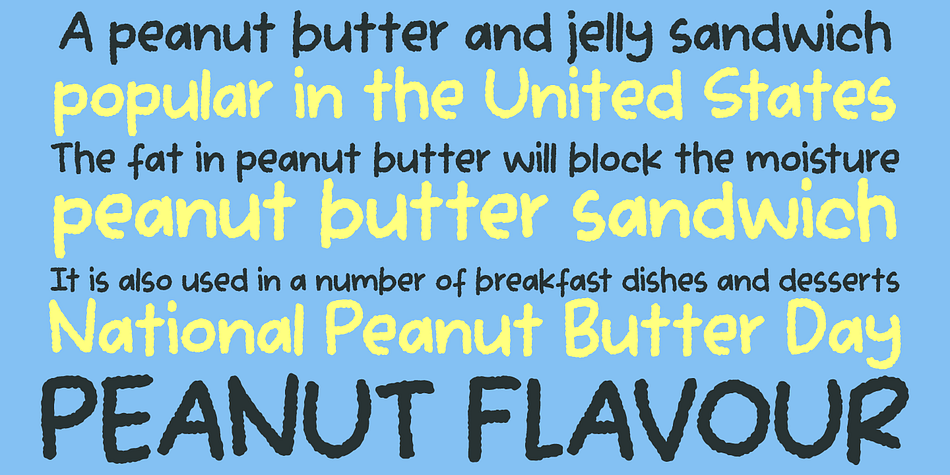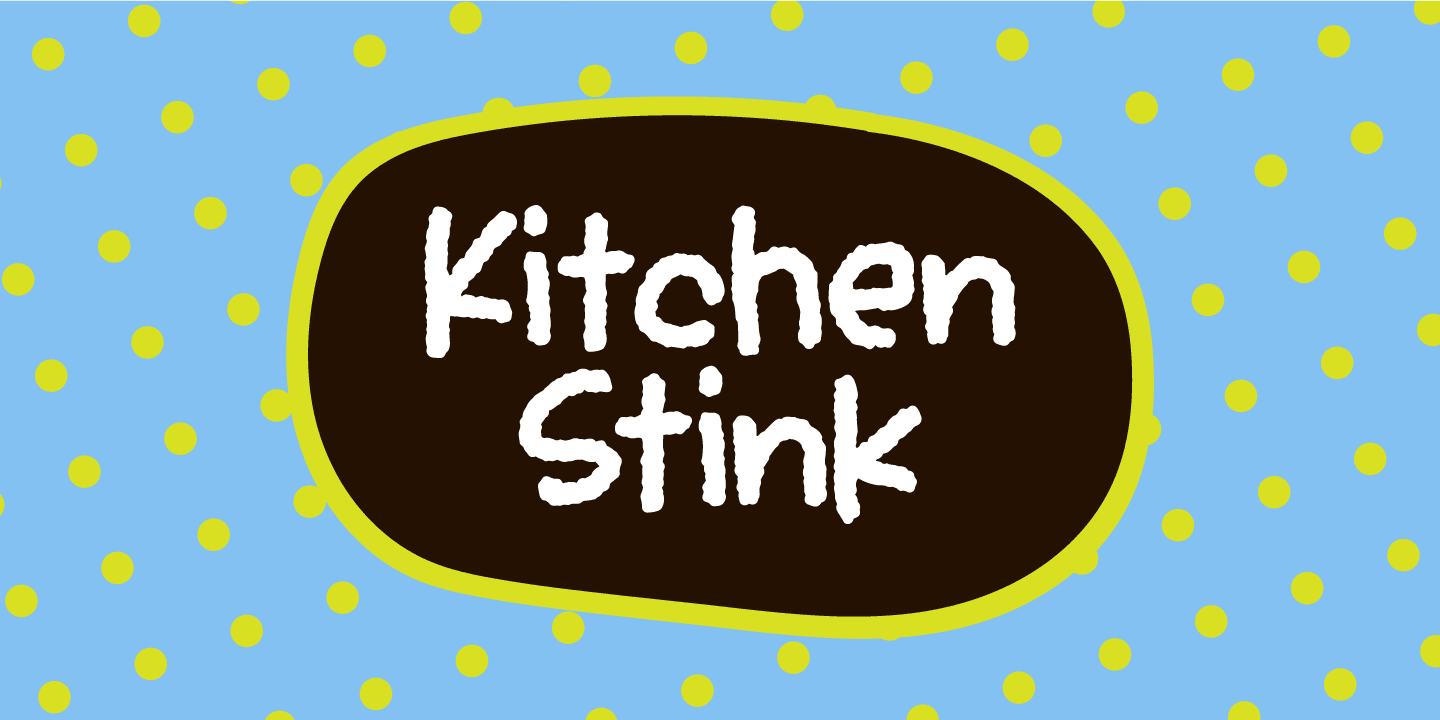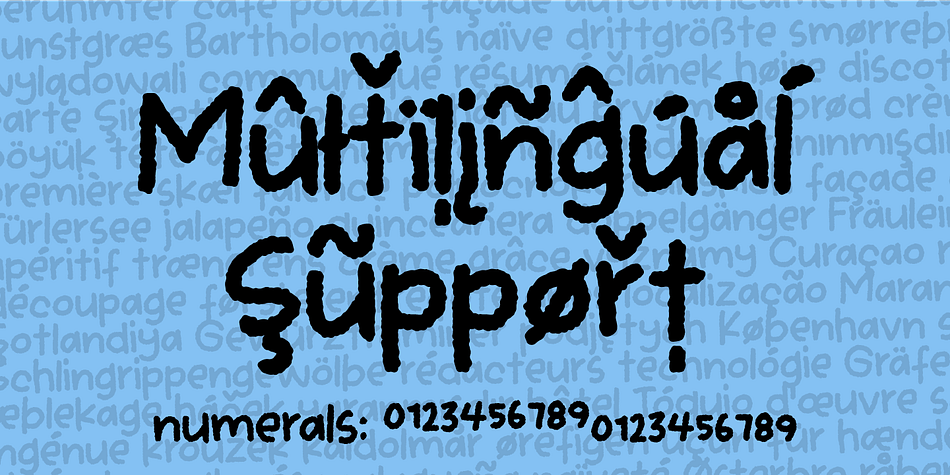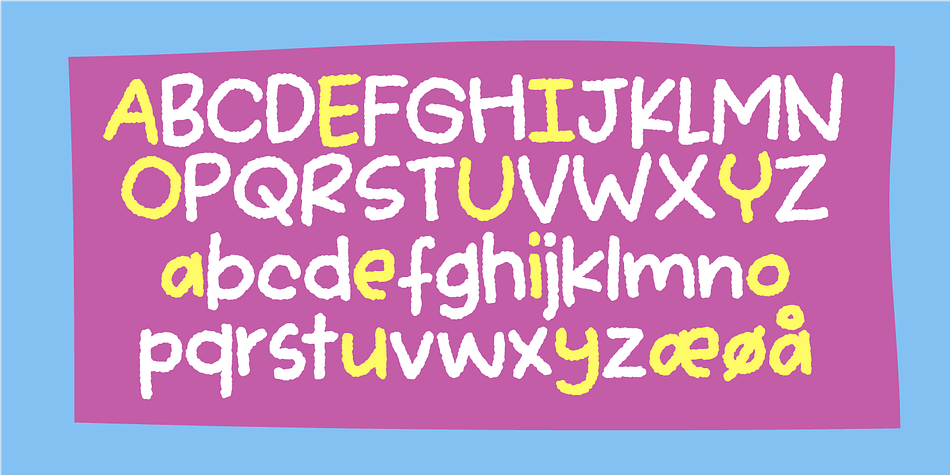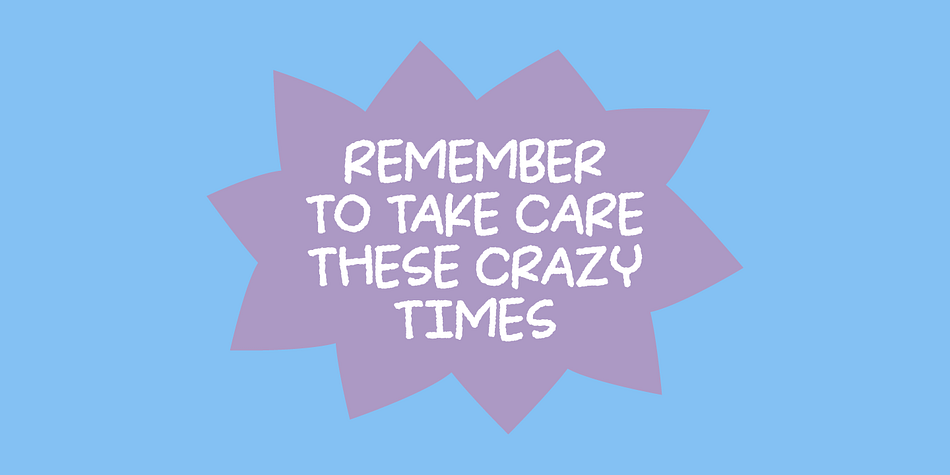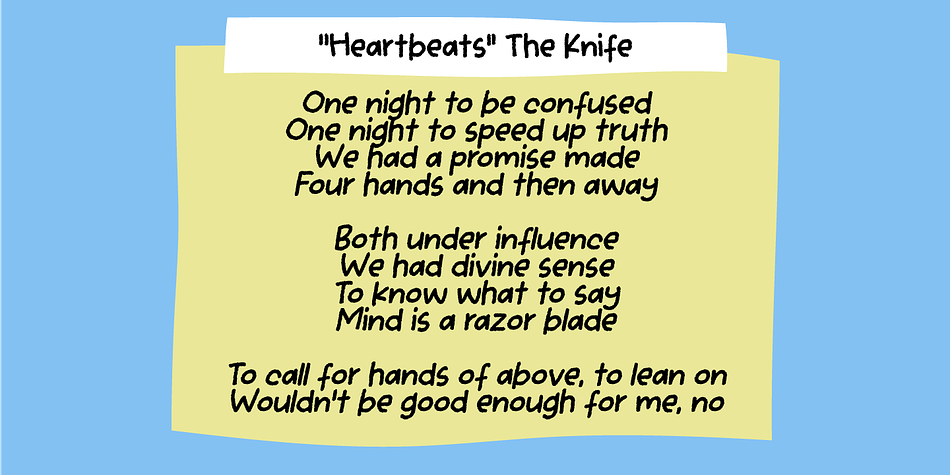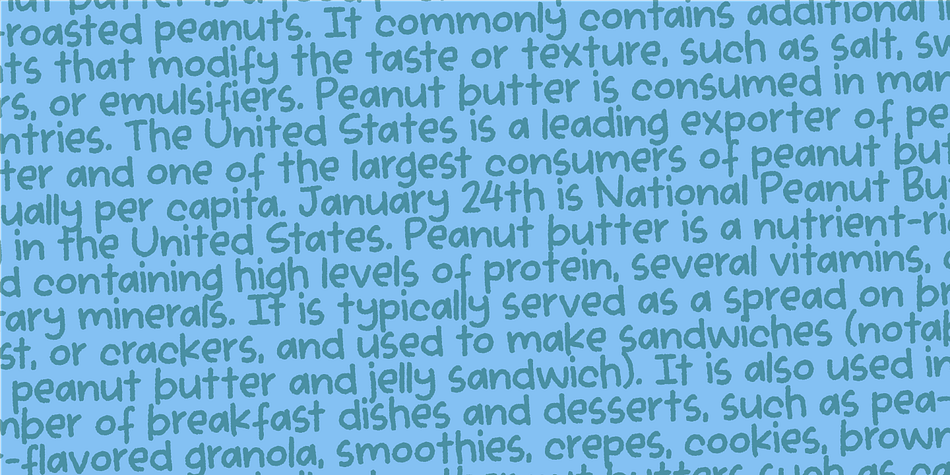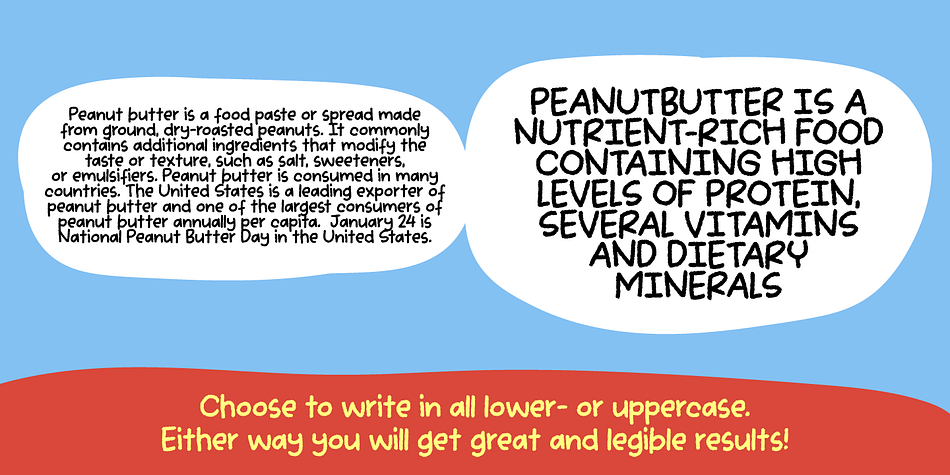
Kitchen Stink
Designed by Jakob Fischer, Kitchen Stink is a hand display, hand drawn and kids font family. This typeface has two styles and was published by Bogstav.
Just like a nice breakfast, Kitchen Stink is a great way to start the day! :)
You may already have guessed that the fontname is the result of a wordplay. Sometimes it’s funny how a single letter can completely change the meaning of a word. In this case!
With this font, you are dealing with a gentle mixture of a basic handwritten font, a comic font and oldschool grafitti! The result is this steady, sometimes a bit off, but legible crunchy handwritten font!